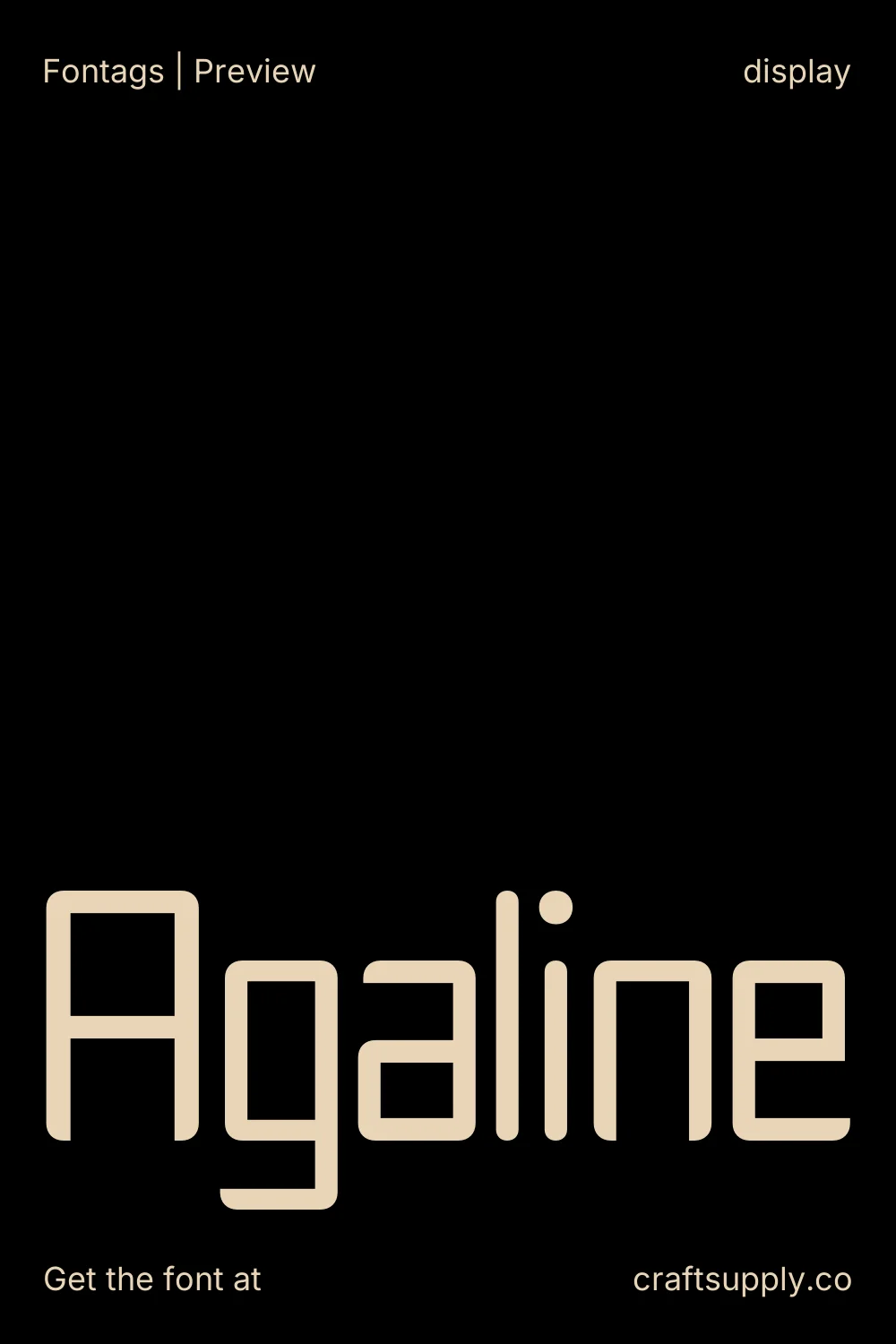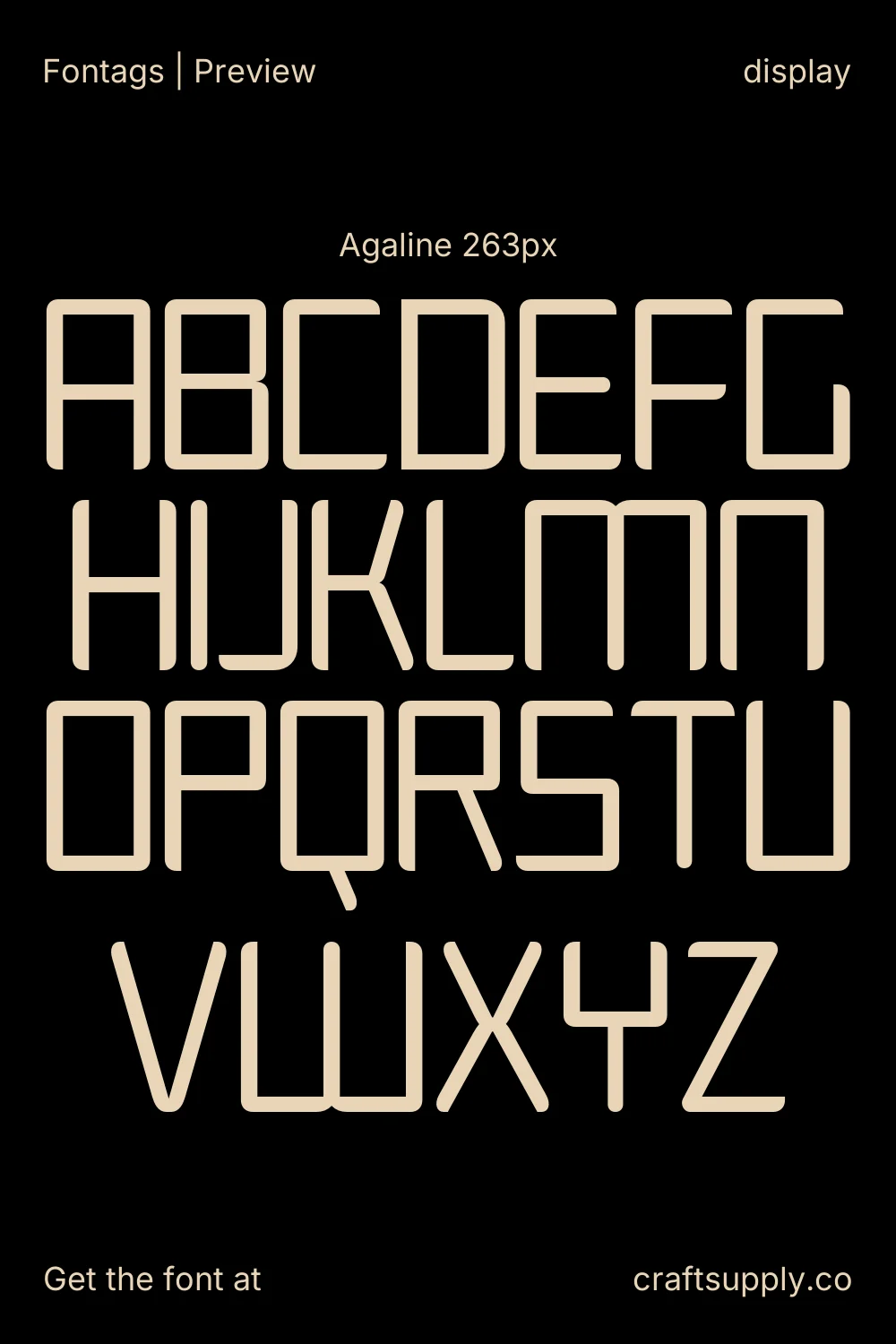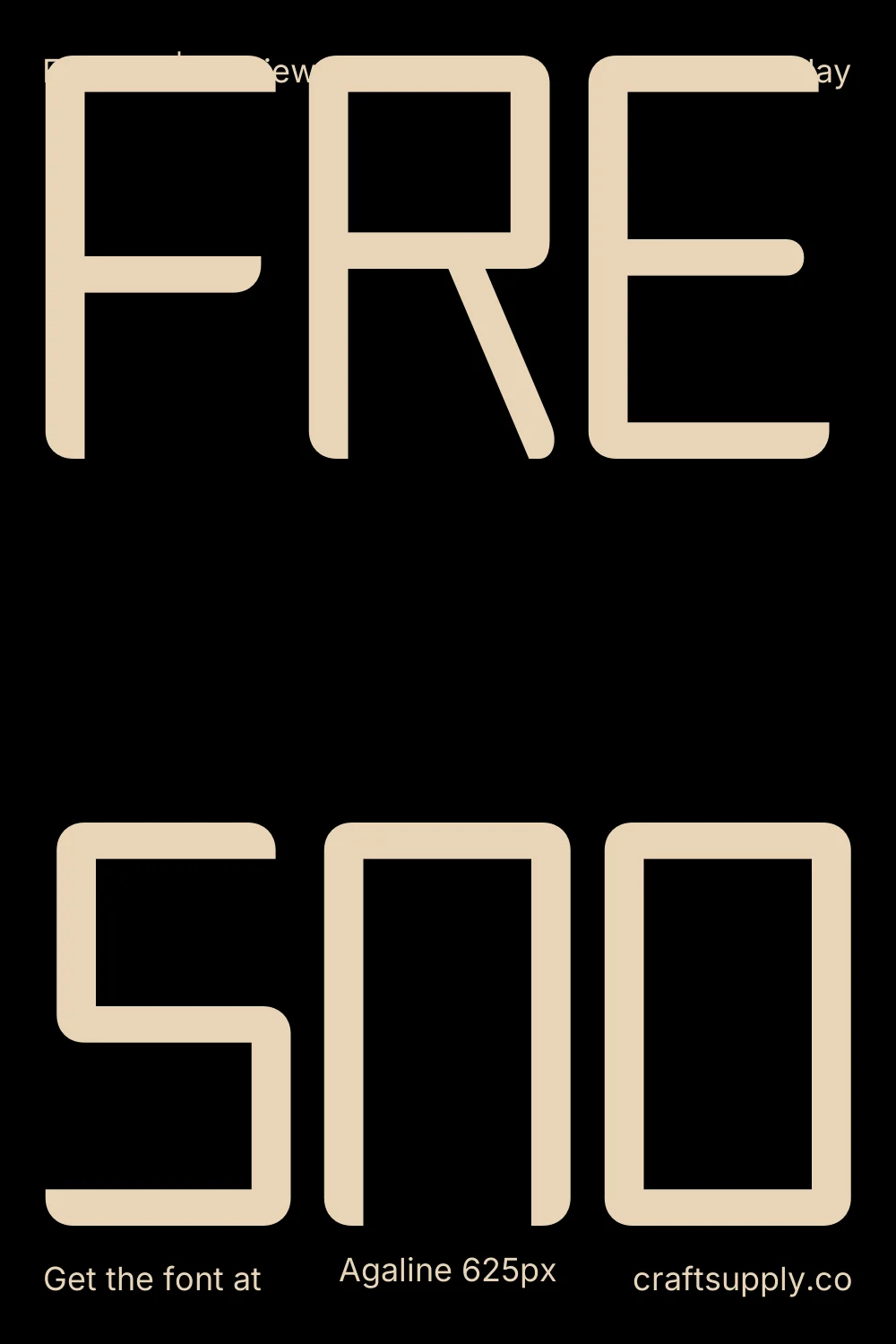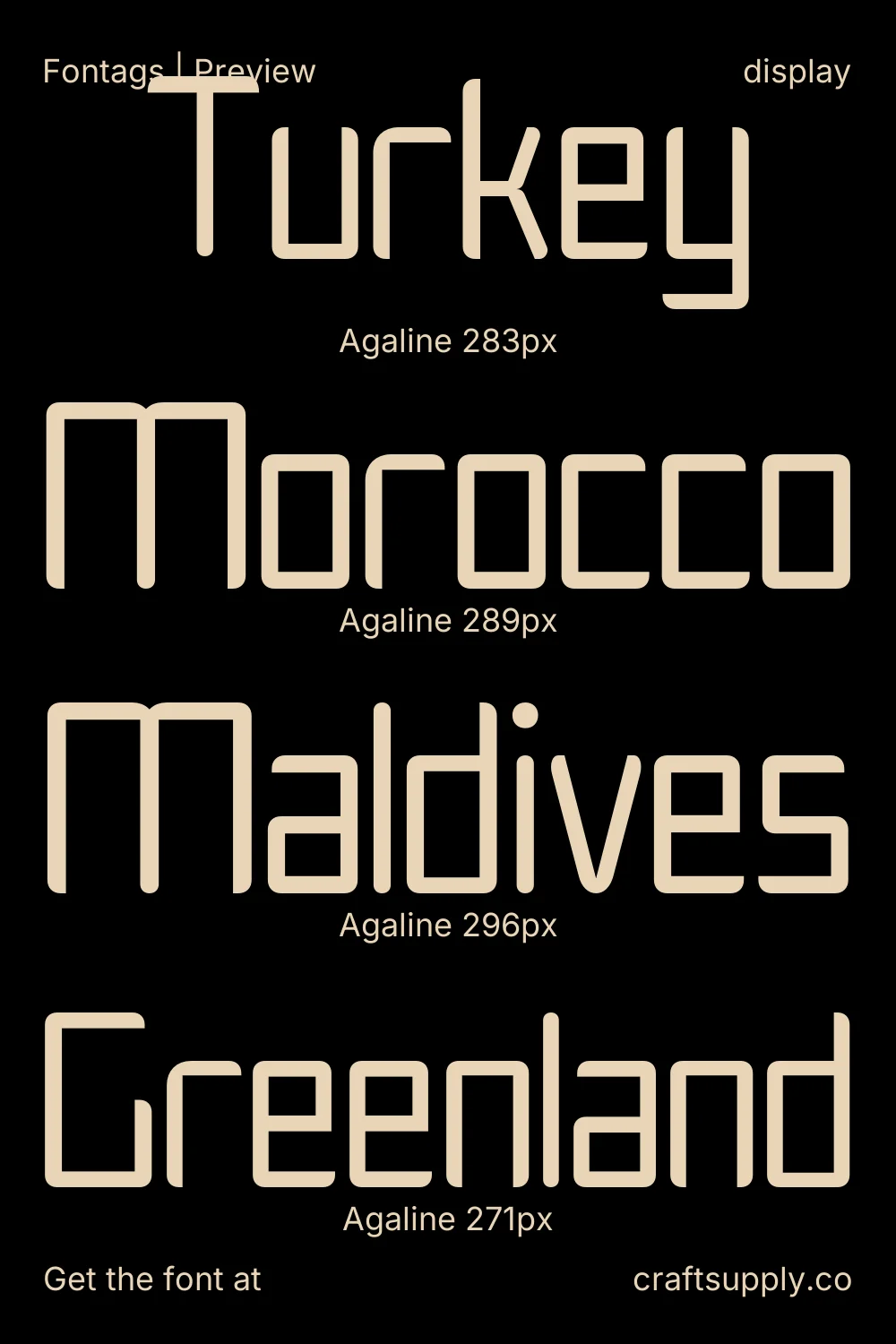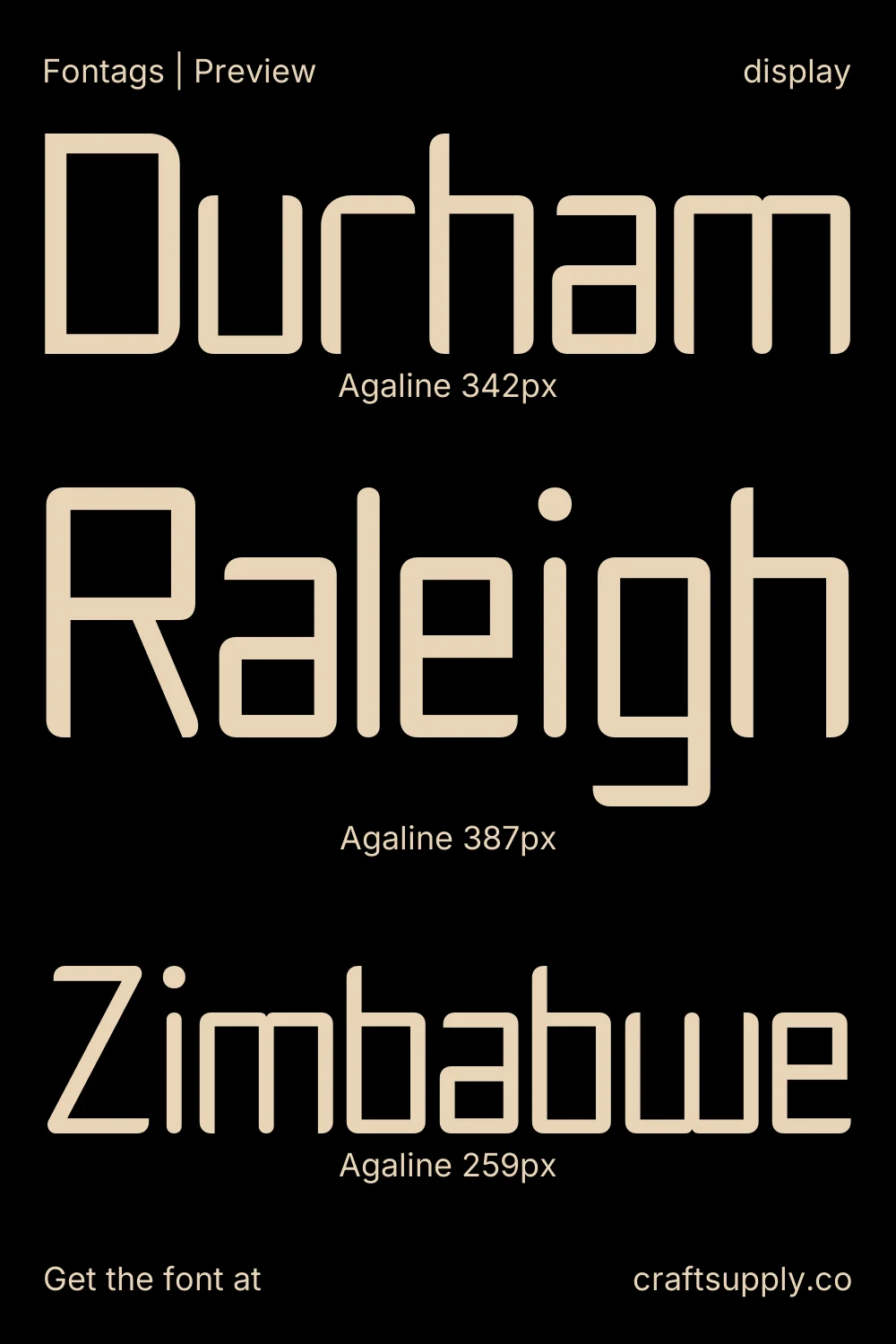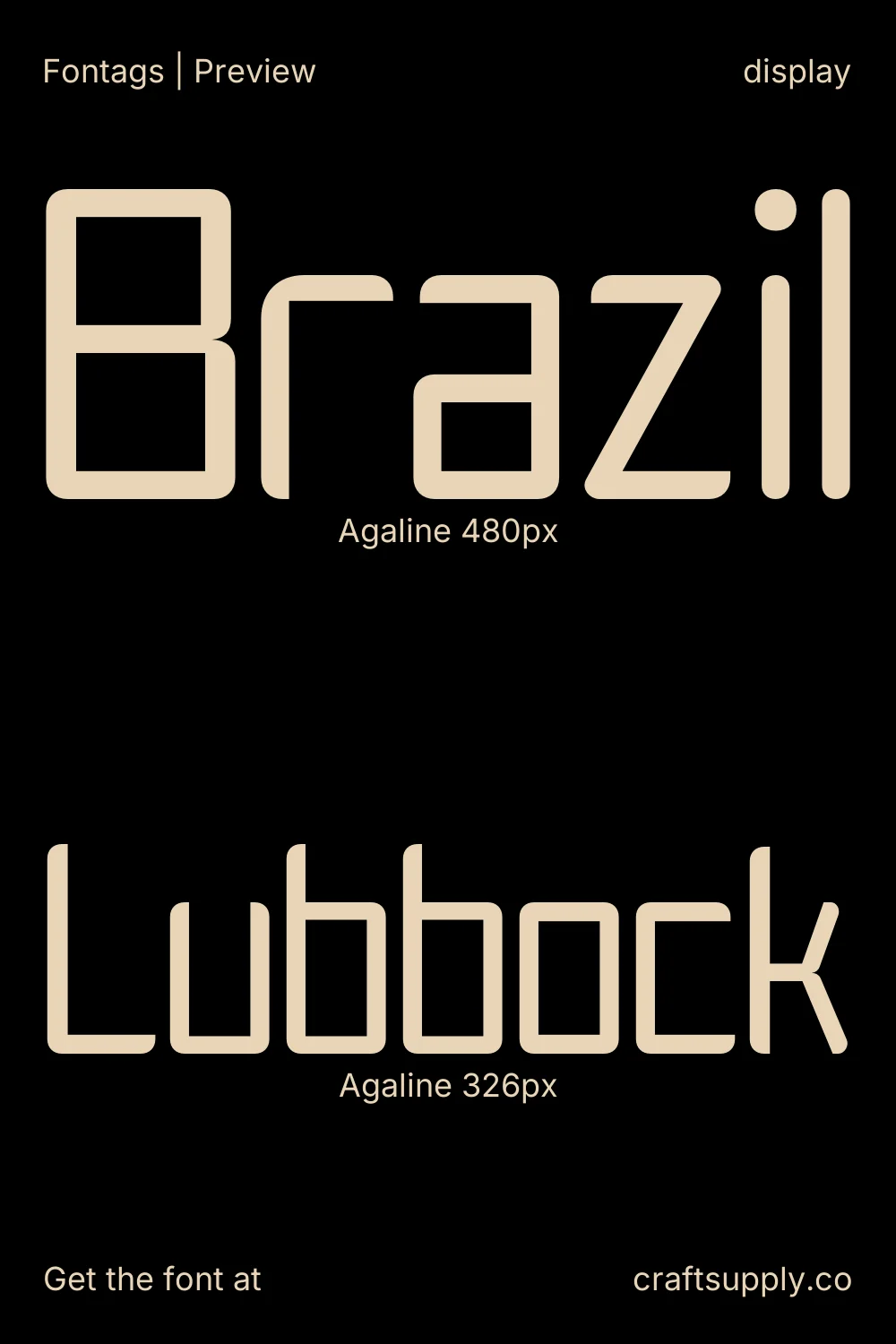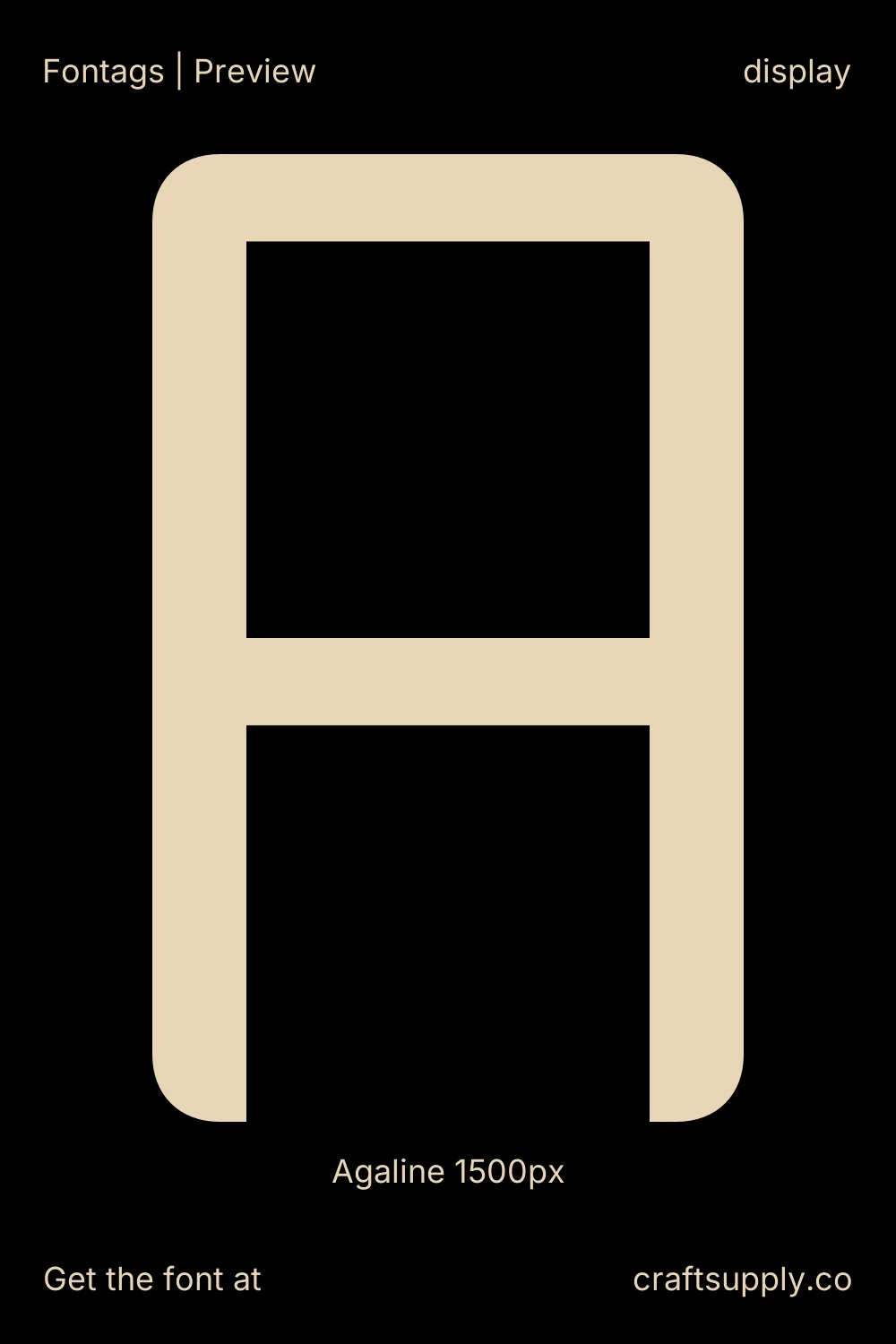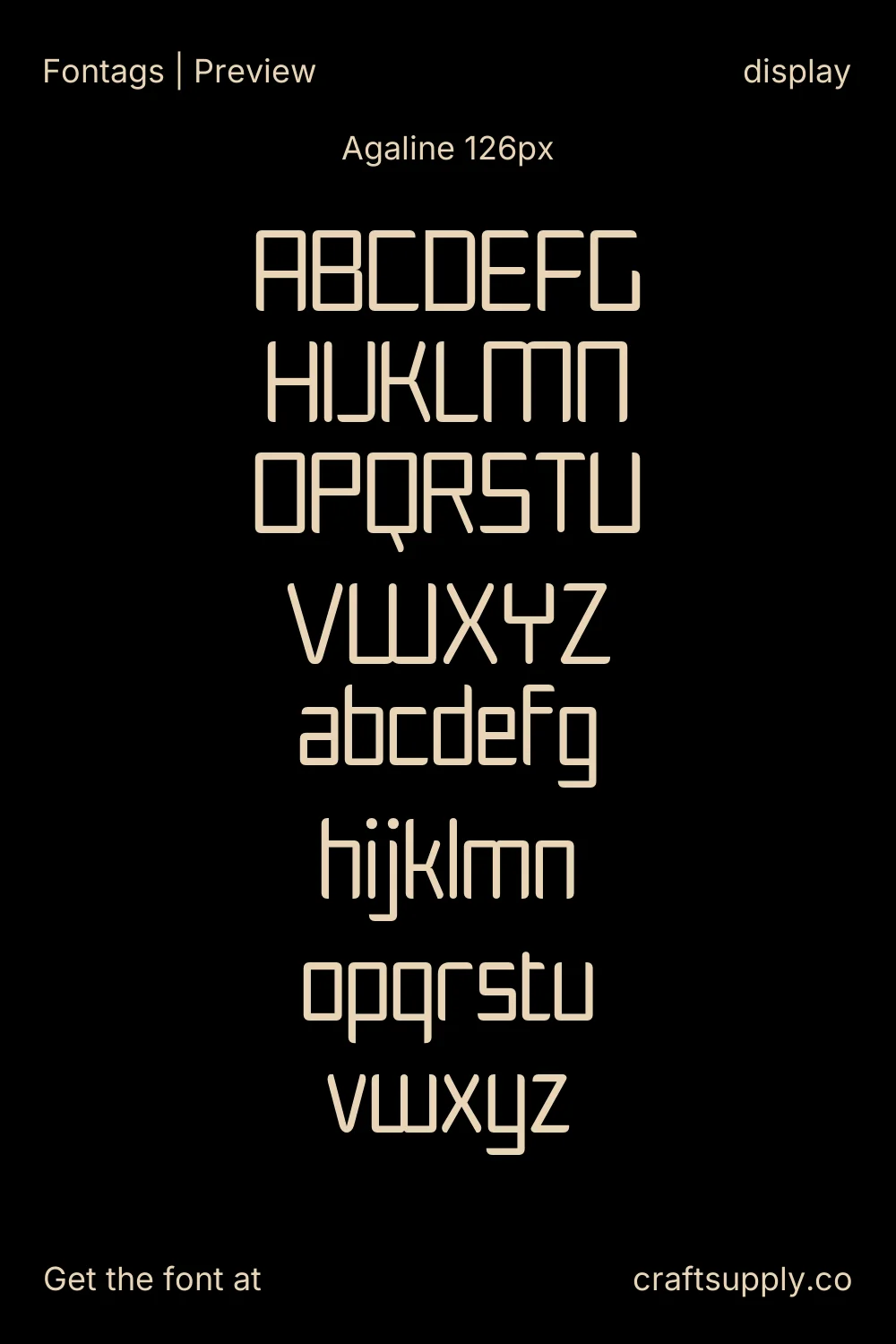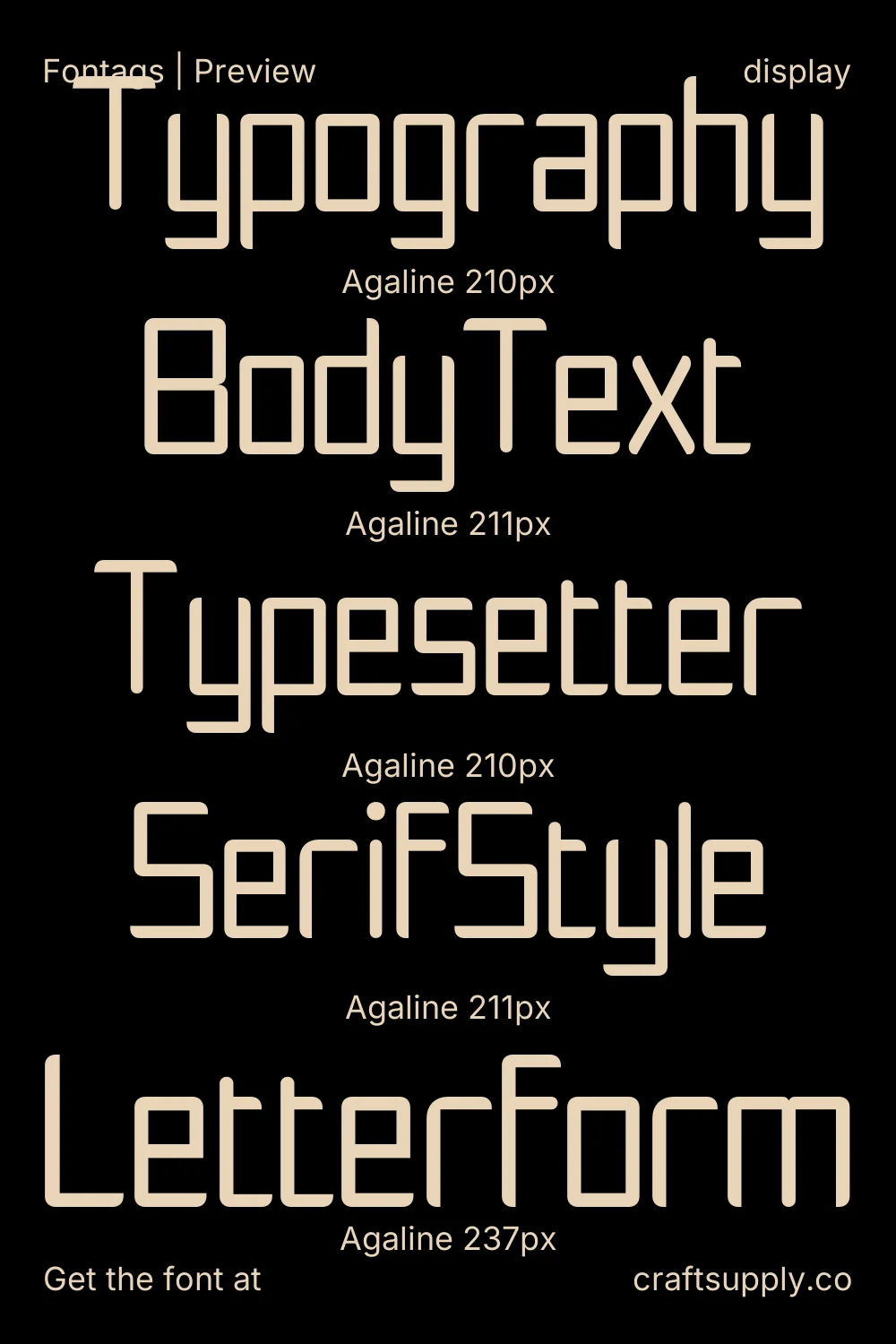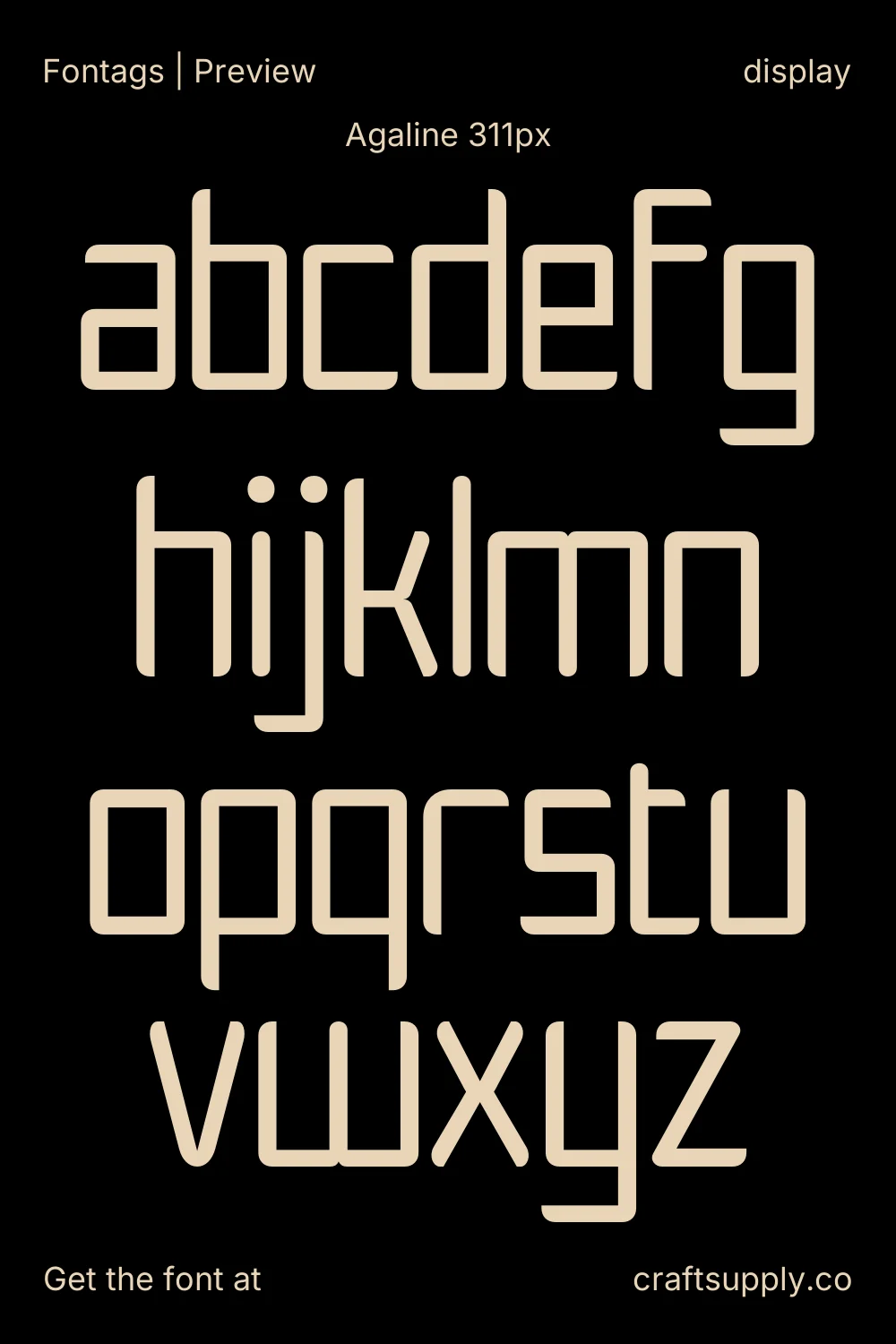
Agaline
Agaline is a minimalist, futuristic display font with a sleek sci-fi aesthetic. Its clean, modern letterforms are designed for clarity and efficiency, making it ideal for headlines, presentations, and extended digital displays. The typeface includes regular and italic styles with multilingual support.